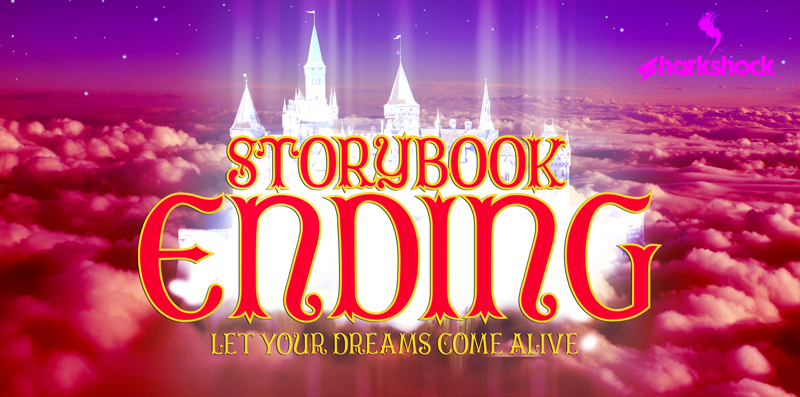
OTF: Storybook Ending by Dennis Ludlow Sharkshock 2020 all rights reserved dennis@sharkshock.net Let your imagination run wild! Storybook Ending is an all caps display font that looks like something straight out of a child�s fairy tale. Uppercase letters appear thorny in appearance while the lowercase is more curvy and wispy. This font was inspired after Victorian lettering found in children�s books along with vintage advertisements in publications. Use it for a children�s book, logo, or toy packaging. Basic Latin, extended Latin, Cyrillic, diacritics, punctuation, and kerning are included. Please check glyph maps for all supported characters. Basic Latin, numbers, and limited punctuation are available in the demo. The full version is available for $35 (personal use only). For EULA or commercial licensing please visit this page: www.sharkshock.net/license Commercial usage without a valid license is strictly prohibited and subject to legal action. Thank you for your support! Tags: kids, children, child, toy, fantasy, playful, serif, European, accents, diacritics, Cyrillic, Russian, French, German, cartoon, toon, display, logo, book, magazine, Victorian, story, book, princess, castle, enchanted, fairy tale |